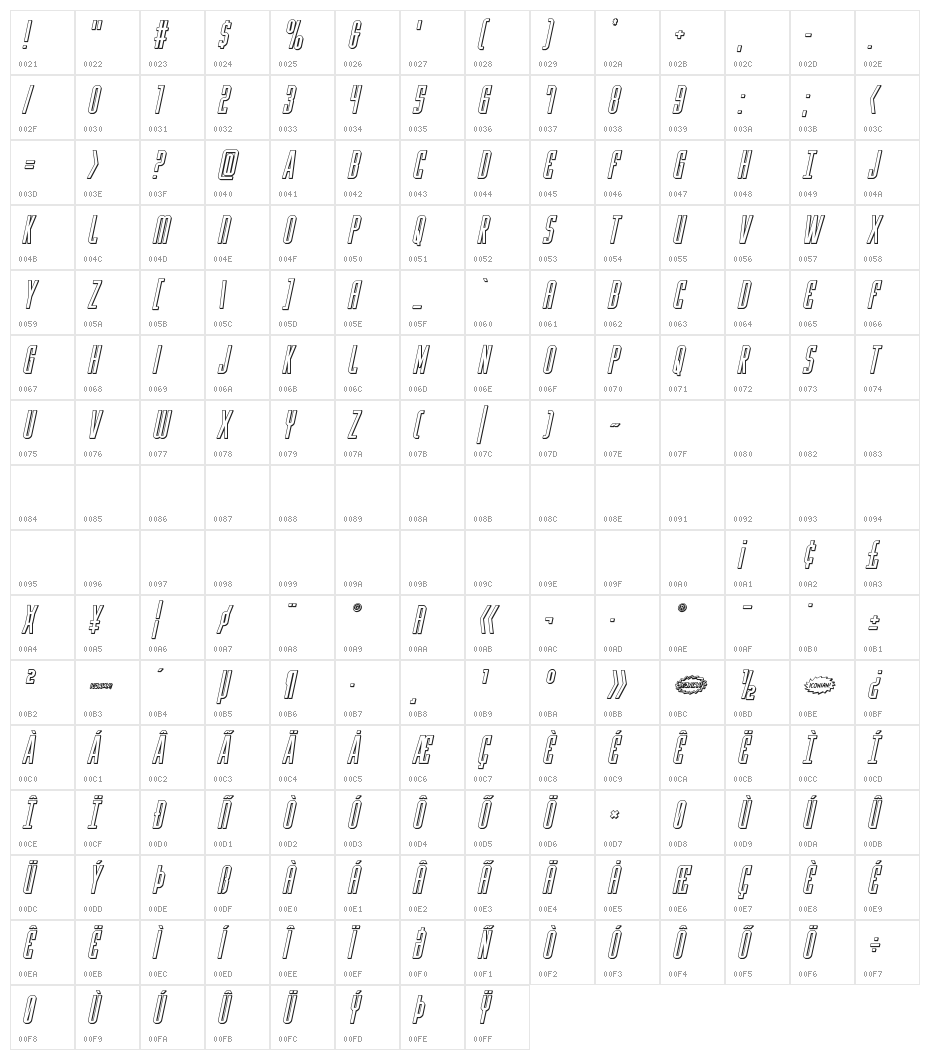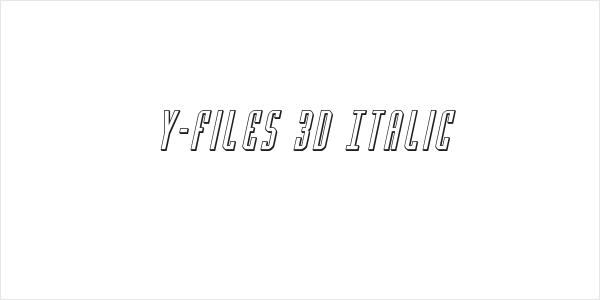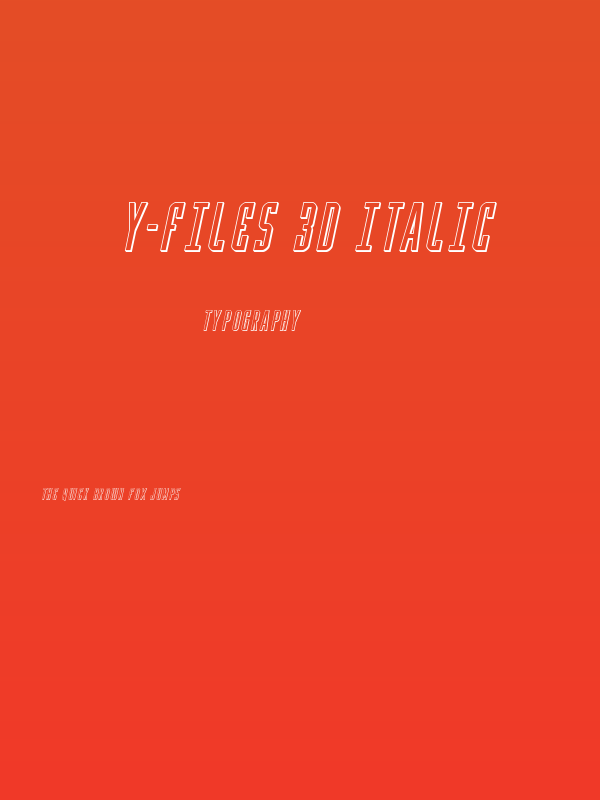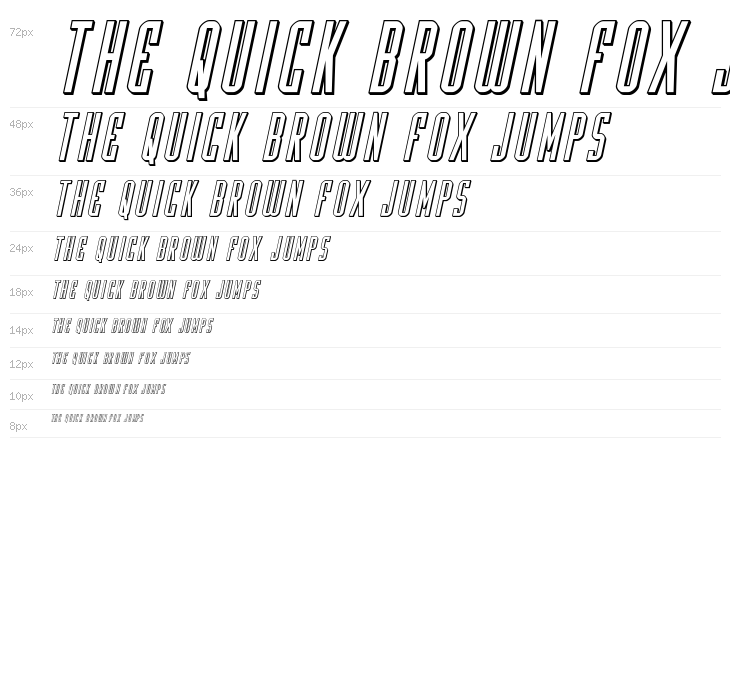
Y-Files 3D Italic Font
Y-Files 3D Italic Description
This font features a bold, italicized style with a distinct 3D effect, giving each character a sense of depth and dimension. The uppercase and lowercase letters are designed with sharp, angular lines that create a futuristic and dynamic appearance. The numbers and special characters maintain this consistent style, making the font suitable for attention-grabbing designs. The overall look is modern and sleek, with a slight slant that adds to its energetic feel. The font's outline is clear and well-defined, enhancing its readability despite the complex design.
| Proposed Projects | Ideal for futuristic branding, video game titles, sci-fi movie posters, and tech-related logos. |